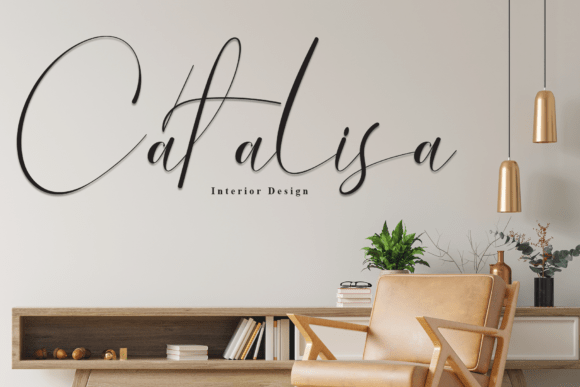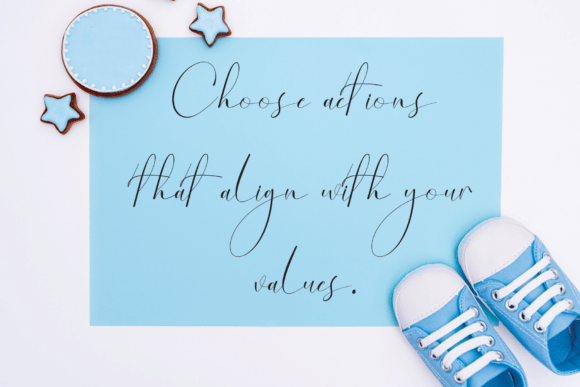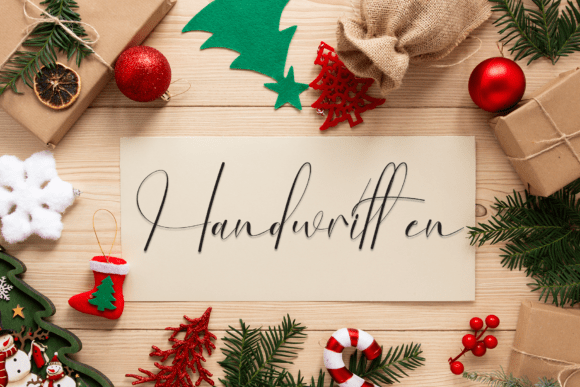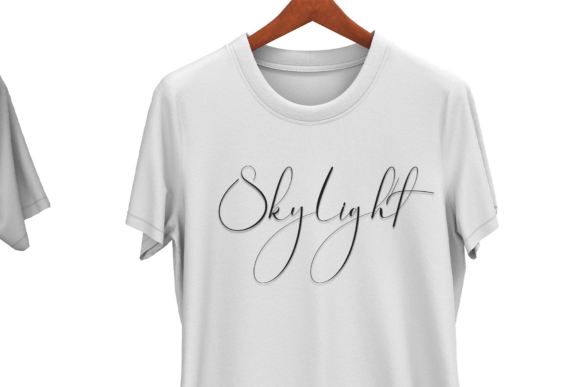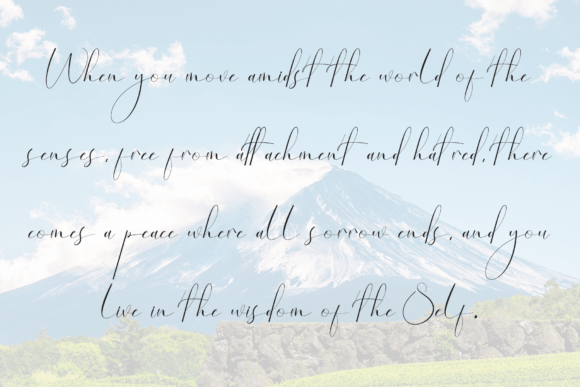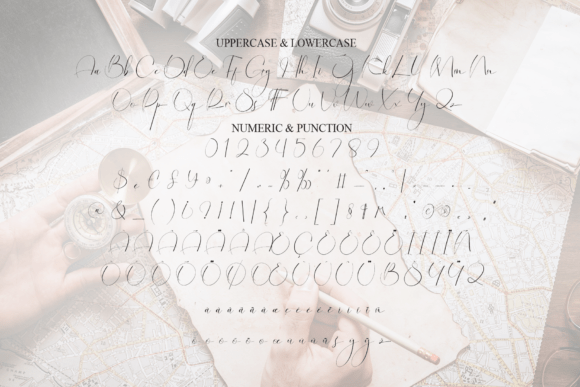
Unleash Timeless Elegance with Century Font: The Ultimate Choice for Creative Expression
Embark on a creative journey with Century, a stunning modern script font that embodies the essence of exploration and sophistication. Designed to convey a sense of artistic freedom and refined elegance, Century is the perfect choice for designers and crafters seeking to add a touch of luxury to their projects. Whether you’re creating a brand identity for a boutique agency, crafting a sentimental message, or designing a luxury wedding invitation, Century’s minimalist yet expressive rhythm makes it an ideal choice.
The Spirit of Exploration in Every Stroke
Century’s design is inspired by the spirit of exploration, evoking a sense of adventure and timelessness. Its fluid strokes and elegant lines create a sense of movement, as if each word is unfolding a new story. The font’s modern script style is perfect for travel branding, editorial adventure layouts, and any project that requires a sense of sophistication and refinement.
One of the standout features of Century is its versatility. This beautiful font can be used in a wide range of applications, from luxury wedding invitations to sophisticated personal signatures. Its expressive rhythm and elegant lines make it perfect for:
- Travel branding: Add a touch of adventure and sophistication to your travel brand with Century’s unique style.
- Editorial adventure layouts: Create engaging and inspiring content with Century’s elegant lines and fluid strokes.
- Luxury wedding invitations: Make your special day unforgettable with Century’s refined elegance and sophistication.
- Sophisticated personal signatures: Add a touch of luxury to your personal brand with Century’s beautiful script style.
Why Choose Century Font?
So, why choose Century font for your next project? Here are just a few reasons why designers and crafters love this beautiful modern script font:
- Unique style: Century’s modern script style is unlike any other font on the market, making it perfect for designers seeking to create something truly unique.
- Timeless elegance: Century’s elegant lines and fluid strokes create a sense of timelessness, making it perfect for projects that require a sense of sophistication and refinement.
- Versatility: Century can be used in a wide range of applications, from luxury wedding invitations to sophisticated personal signatures.
- Artistic freedom: Century’s expressive rhythm and elegant lines give designers the freedom to create truly unique and inspiring projects.
Tips for Using Century Font
To get the most out of Century font, here are a few tips to keep in mind:
- Use it sparingly: Century’s elegant lines and fluid strokes are best used sparingly, allowing each word to shine.
- Pair it with contrasting fonts: Pair Century with contrasting fonts to create visual interest and add depth to your project.
- Experiment with colors: Century’s beauty is enhanced by a range of colors, from classic black and white to bold and bright hues.
In conclusion, Century font is a beautiful modern script font that embodies the essence of exploration and sophistication. Its minimalist yet expressive rhythm makes it a perfect choice for designers and crafters seeking to add a touch of luxury to their projects. Whether you’re creating a brand identity for a boutique agency or crafting a sentimental message, Century delivers a sense of artistic freedom and refined elegance to every word. So why not embark on a creative journey with Century font today and discover the beauty of timeless elegance?
With Century font, the possibilities are endless. So go ahead, take the leap, and experience the beauty of this stunning modern script font for yourself.